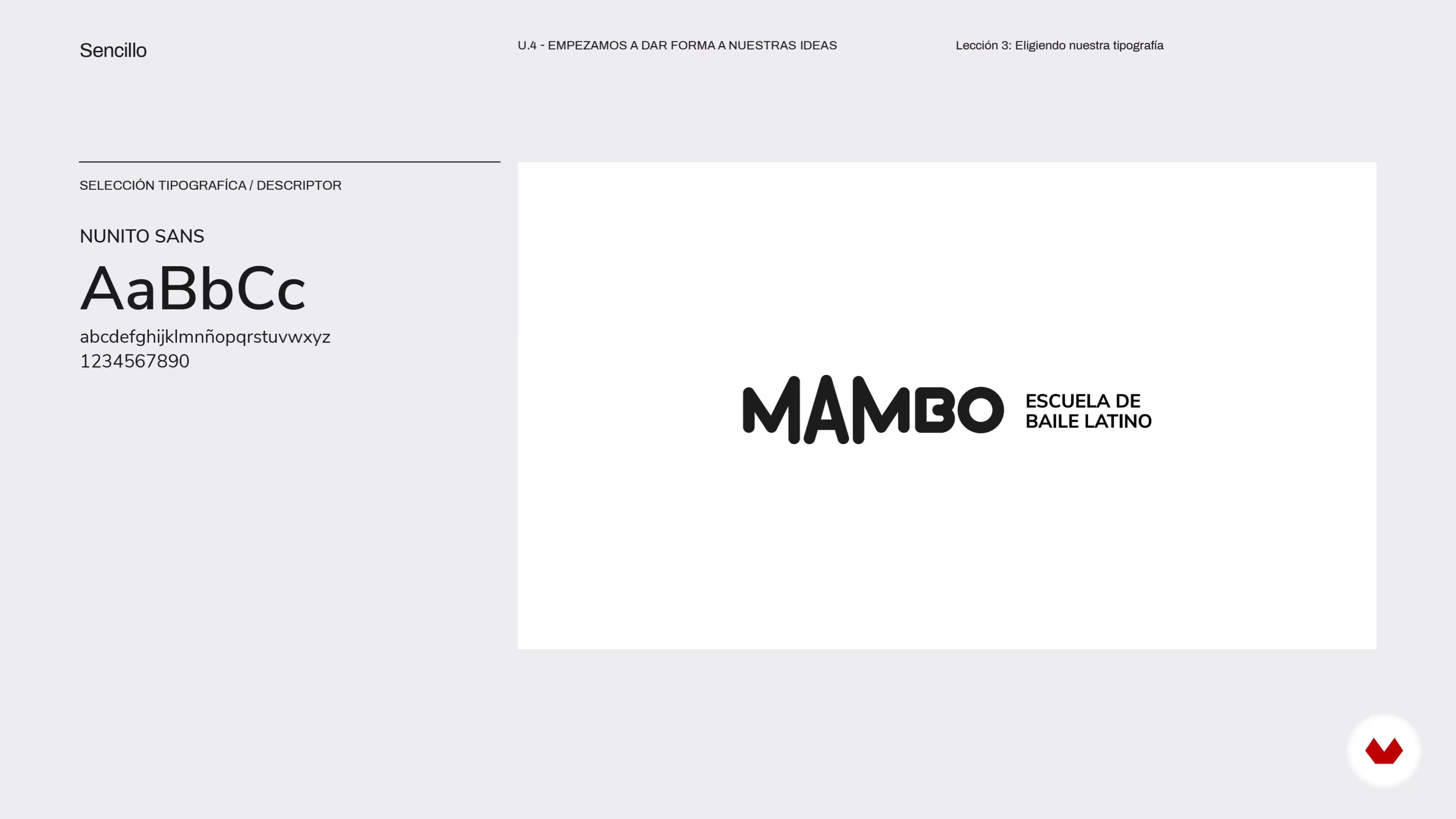
Choosing Our Font
About the video: Choosing Our Font
“Next, I will show you the large groups of font families out there. I will explain to you in which subgroups these typeface families are divided and the personality they can contribute to your logo. I will also show you some examples of how to combine fonts and some pages where you can find very interesting fonts.”
“Choosing our font In this lesson we will see the typeface families that exist and I will show you pages where you will find very interesting options. I show you. In this lesson we will start choosing a font for our logo that adapts well to the needs we are looking for. But first I want to investigate a little and show you all the kinds of fonts out there and all the font families that exist. I want to comment that these fonts are divided into three large groups. The first would be the Roman with serif. A second would be sans serif. And the last group would be the Script or labeled. We start...”